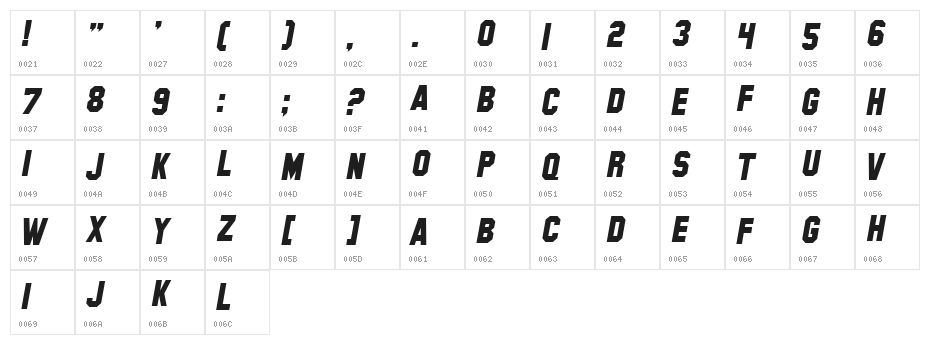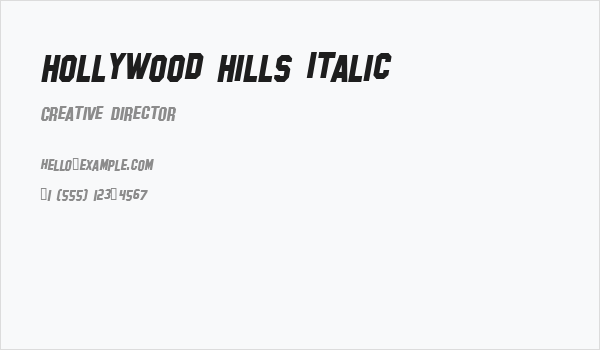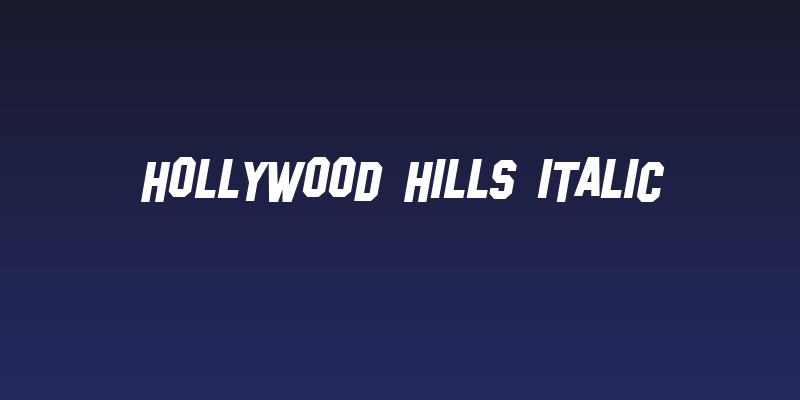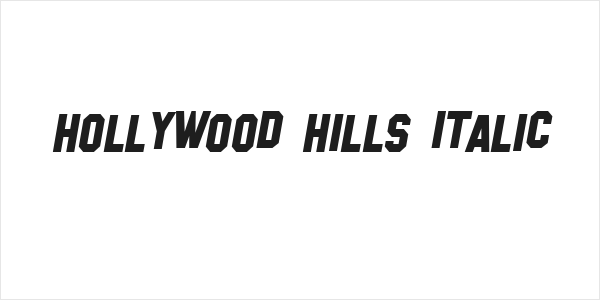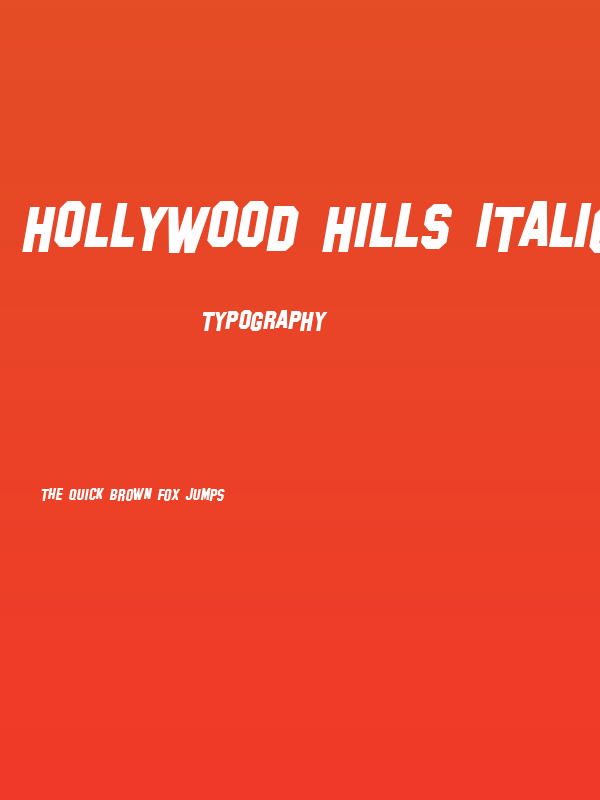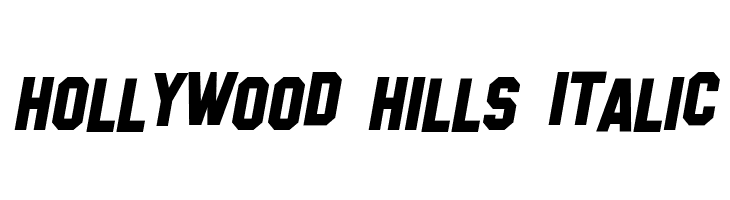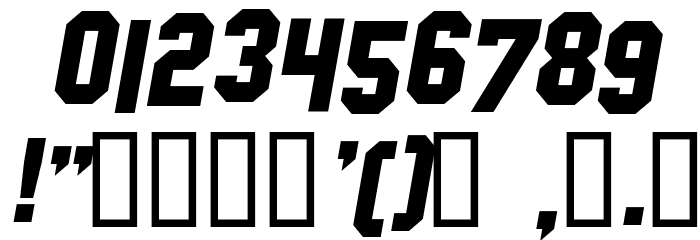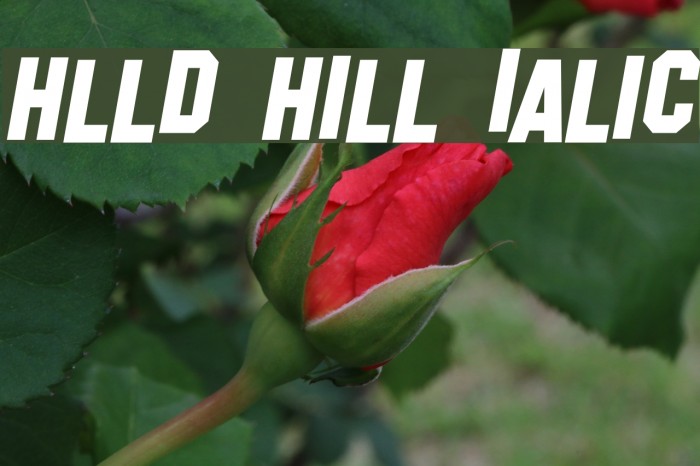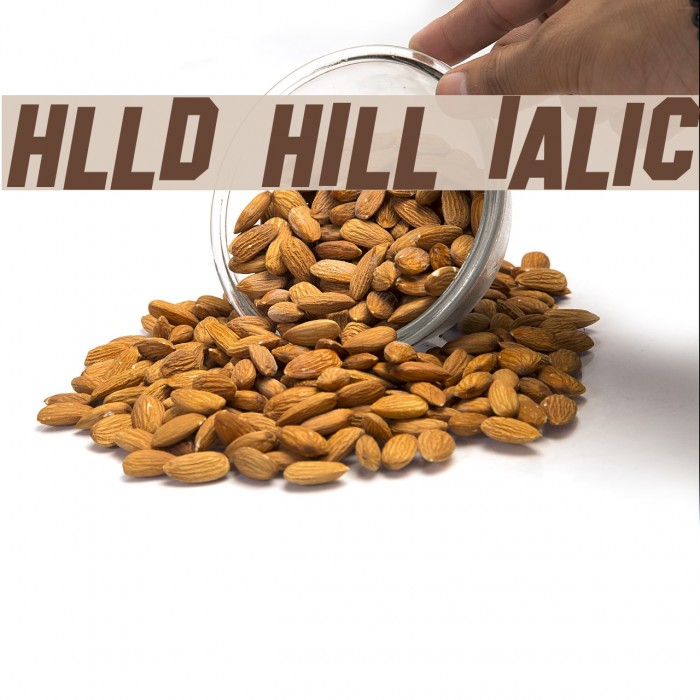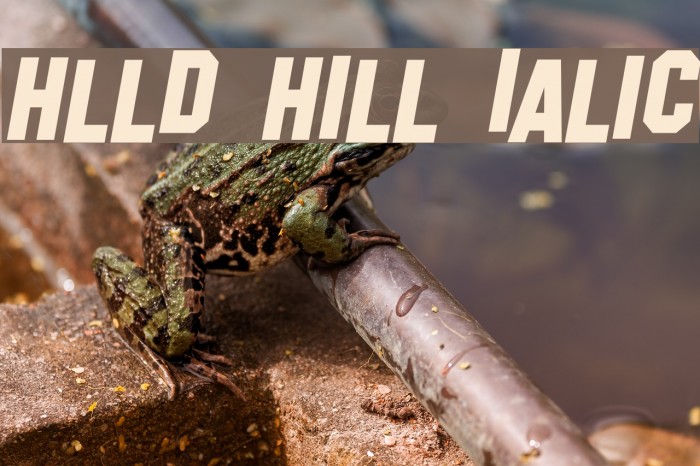
Hollywood Hills Italic Font
Hollywood Hills Italic Description
This font features a bold, italicized style with a strong, angular design. The characters are sharply defined, giving a sense of movement and energy. The uppercase letters are particularly striking, with a slight slant that adds dynamism. The numbers and special characters maintain the same boldness and angularity, ensuring consistency across all elements. The overall appearance is modern and impactful, making it suitable for attention-grabbing headlines or branding materials.
| Proposed Projects | Ideal for movie posters, sports branding, dynamic advertisements, and any project requiring a strong visual impact. |